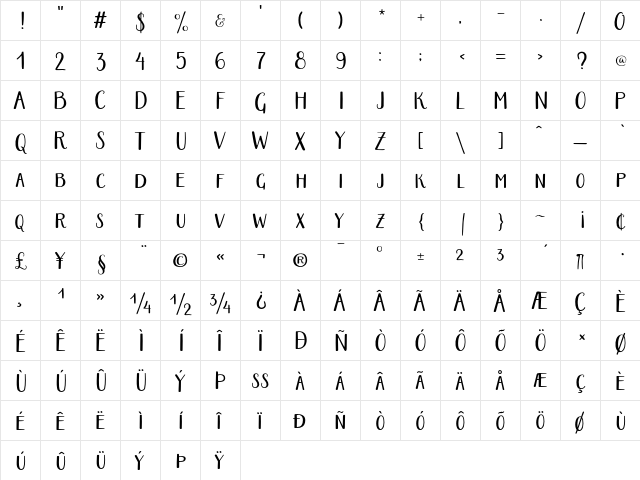
Aristelle Sans Cond Regular
| Designer | Elena Genova |
Design Context for Aristelle Sans Cond Typeface
Aristelle Sans Cond is a composed and adaptable typeface that performs quietly and consistently across a wide range of design contexts. Its narrow stance lets it pack a punch even in space-constrained designs.